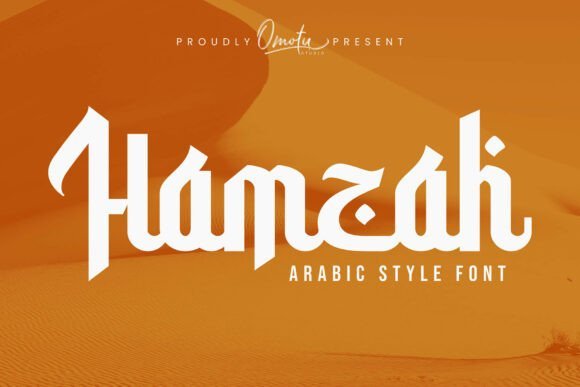
Introduction to Hamzah Font
Hamzah is a sleek, modern Arabic-style font designed to bring a touch of elegance and authenticity to your creative projects.
Perfectly versatile, it’s ideal for designs with Islamic themes, from bold headings and sophisticated branding to apparel, packaging, quotes, flyers, posters, book covers, and advertisements This font comes with full OpenType and multilingual support , ensuring a seamless design experience.
Key Features of Hamzah Font
Hamzah Font offers exceptional quality and versatility, making it a valuable addition to your design toolkit. Whether you’re creating for personal projects or commercial use, Hamzah Font delivers professional results.